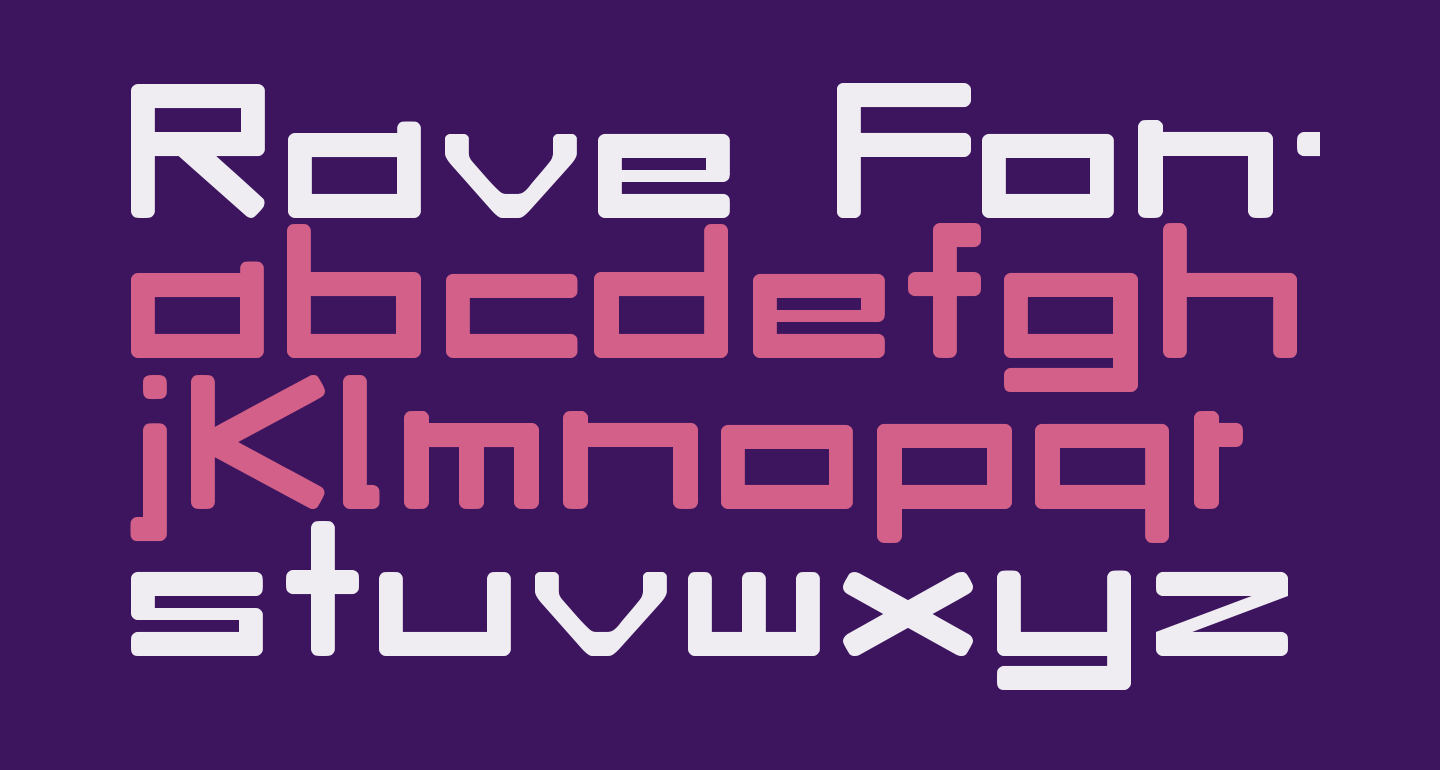
The Best Rave Fonts 2022
The rave includes the following font families: It brings a modern and attractive typeface. A b c d e f g h i j k l m n o p q r s t u v w x y z # 3d alien animal army stencil asian arabic bitmap pixel blackletter.
Rave Light Italic Rave Rave Italic Rave Bold Italic Rave Preview Here Is A Preview Of How Rave Will Look.